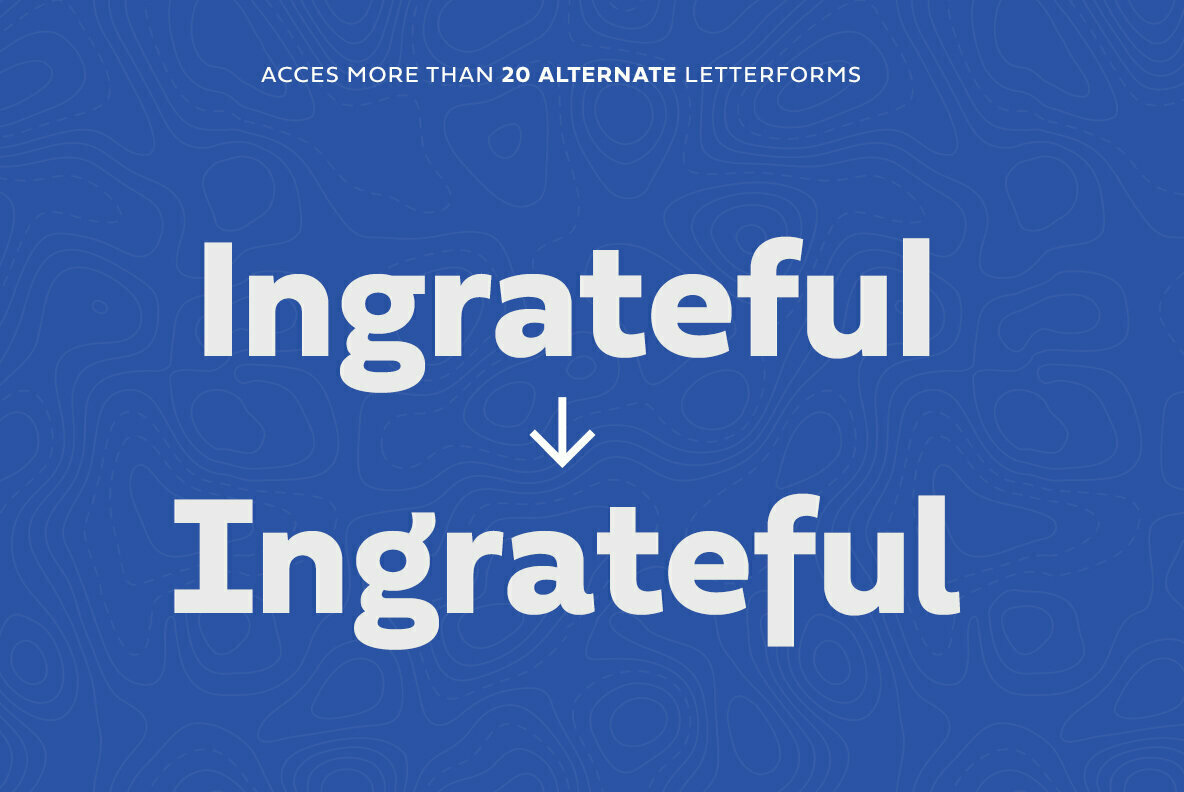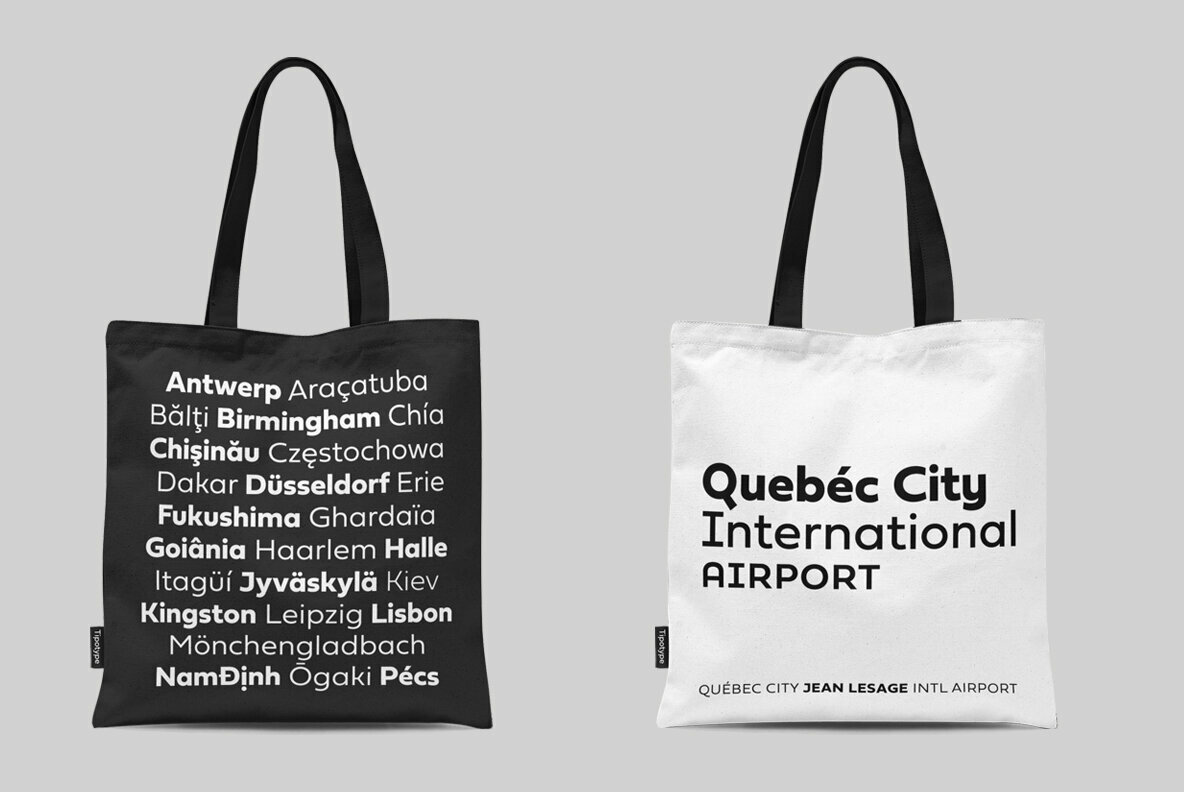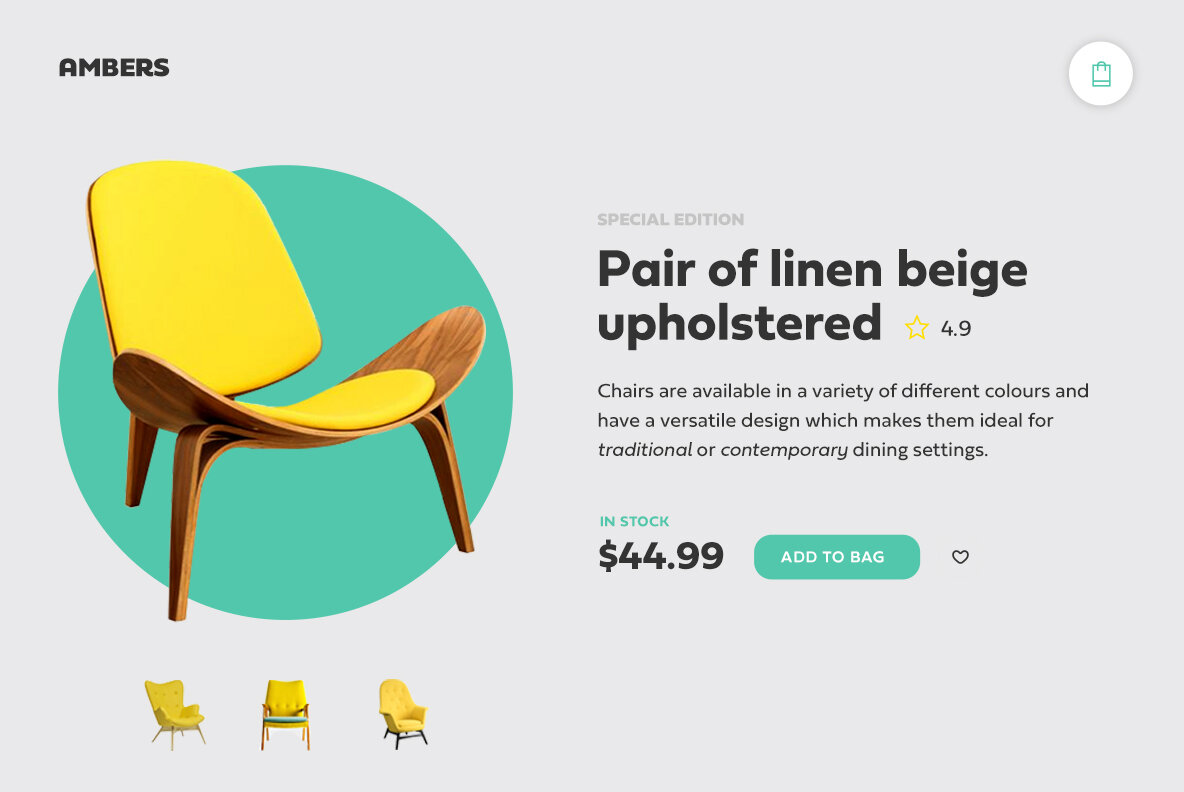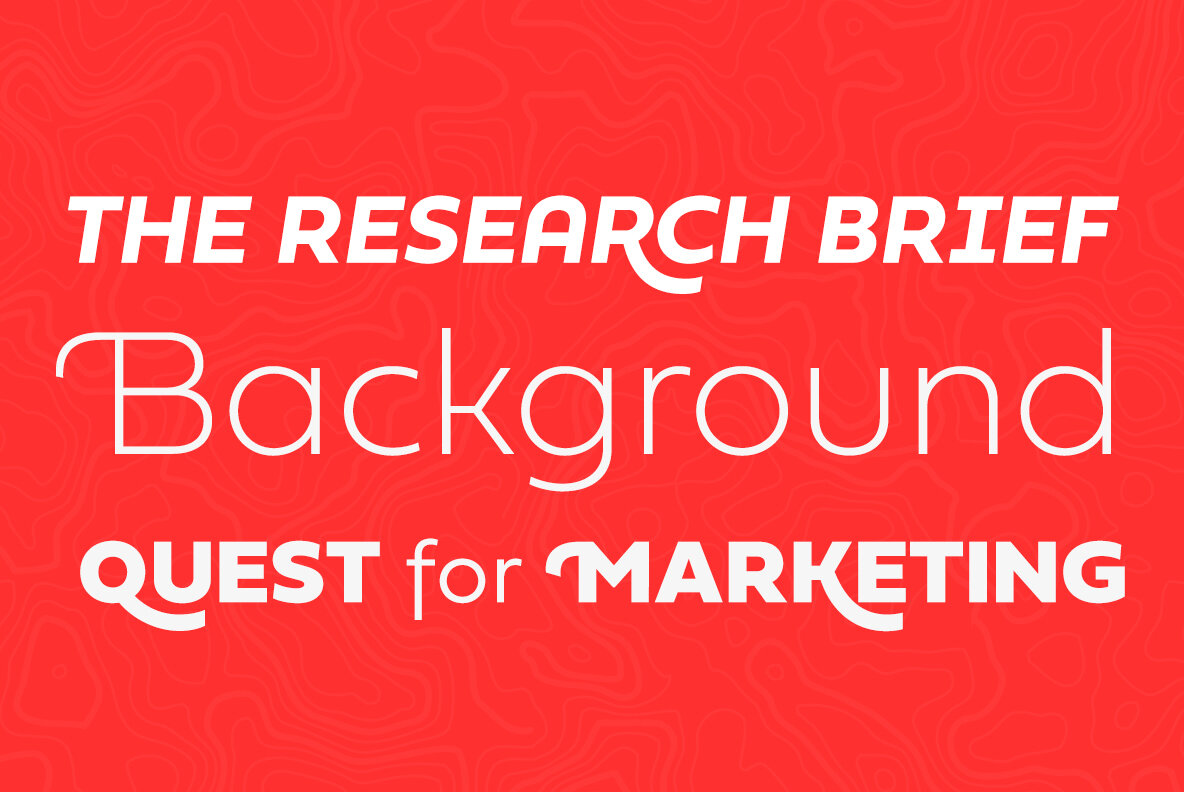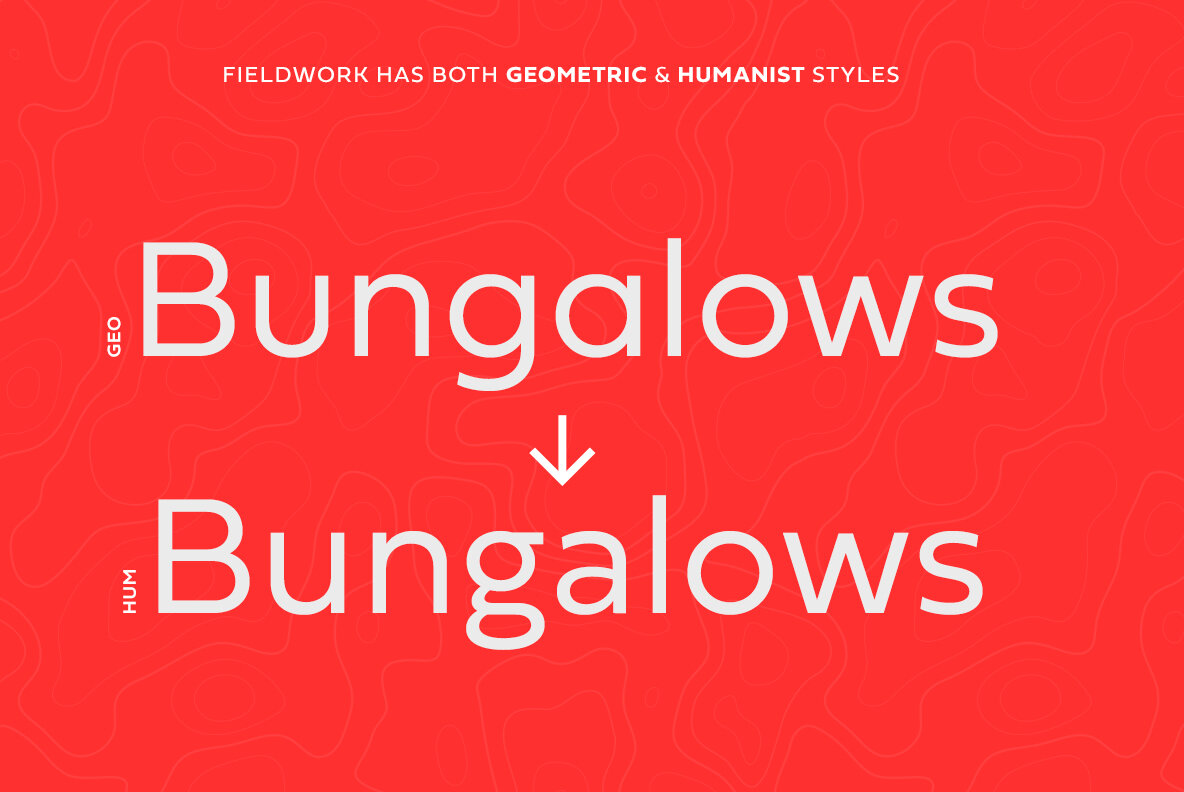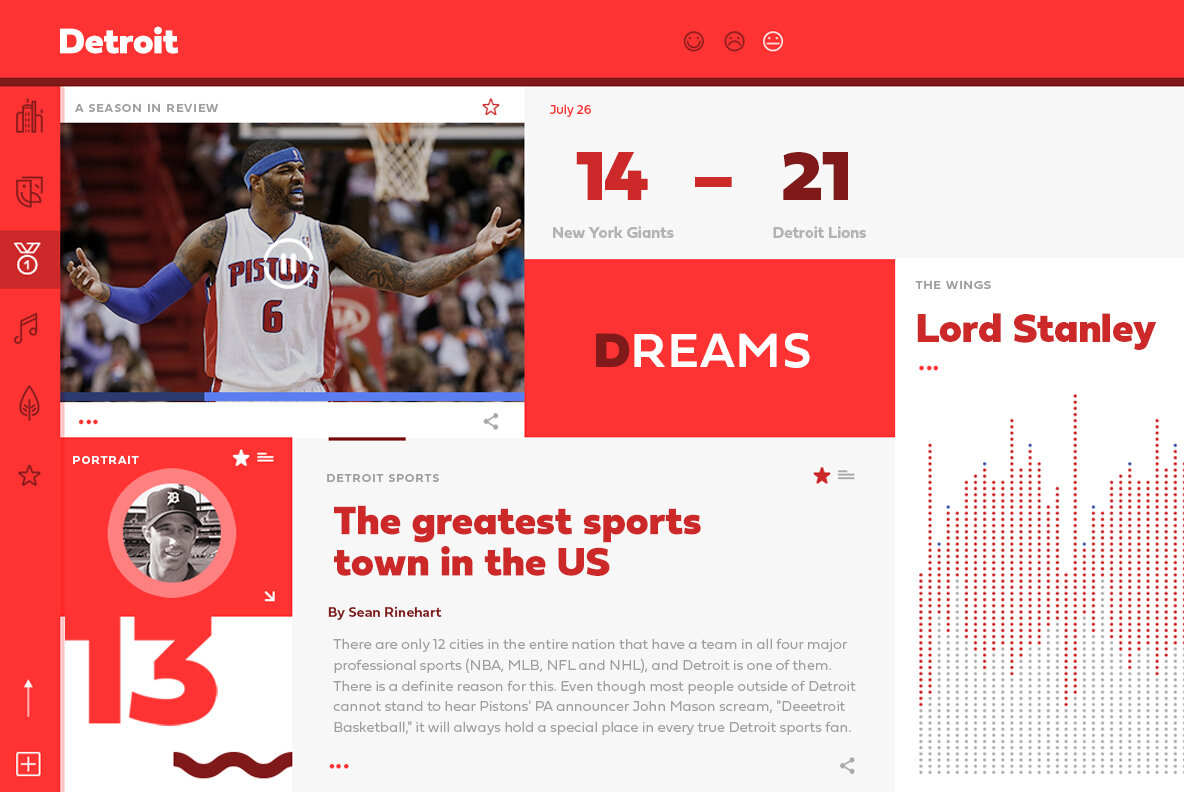
Fieldwork Font
Fieldwork brings back the manual tradition of typography production, veering away from lab interpolations. Each of its 24 variants was drawn based on optical evaluation; many of its curves and details were specifically adjusted for each weight, reformulating them to better suit the requirements of the distinct stroke weighs. It is the product of a collaborative effort by the TipoType team, combining their personal strengths and “most importantly” their enriching individual outlooks to achieve a more versatile and fresh outcome. Its shapes successfully combine geometric strokes (in the Geo variants) with the humanistic warmth of the double-storey glyphs (like a and g in the Hum variant) in a system that grows with alternates, swashes and the corresponding italics for every weight. It includes a very thorough coverage for a wide variety of Latin alphabet-based language families. Designers: Martin Sommaruga Vicente Lamónaca TipoType Foundry